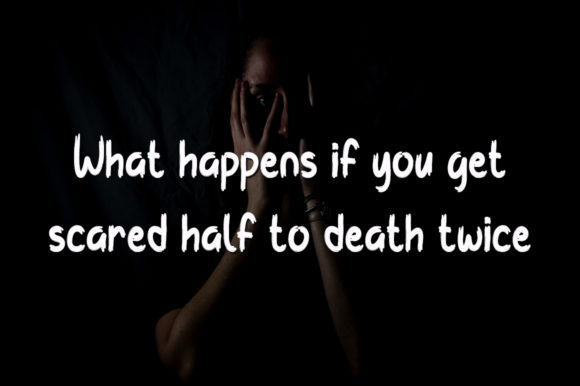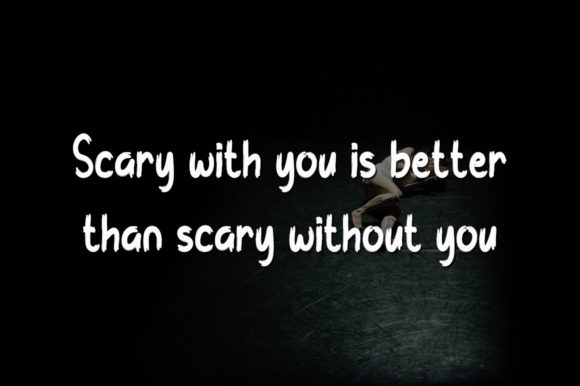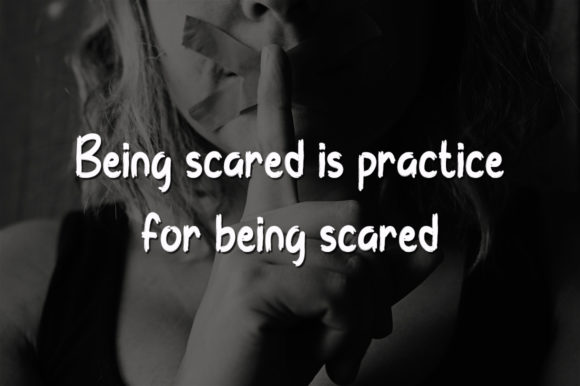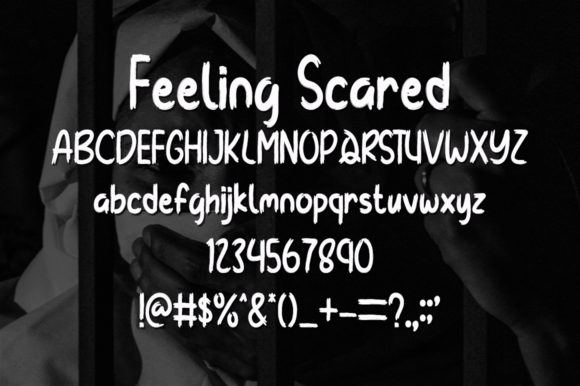
Unleash Your Creativity with Feeling Scared Font: A Casual Handwritten Delight
Are you a designer or crafter looking for the perfect font to add a personal touch to your projects? Look no further than Feeling Scared, a casual handwritten font that’s sure to make your designs stand out. In this article, we’ll dive into the world of Feeling Scared font, exploring its unique features, uses, and benefits. Whether you’re a seasoned pro or just starting out, you’ll learn how to make the most of this beautiful font and take your designs to the next level.
What is Feeling Scared Font?
Feeling Scared is a casual handwritten font that’s perfect for making beautiful and great designs. With its unique, laid-back vibe, this font is ideal for adding a personal touch to a wide range of projects, from DIY crafts to digital designs. The font’s casual, handwritten style gives it a friendly, approachable feel that’s sure to resonate with your audience.
Key Features of Feeling Scared Font
So what sets Feeling Scared font apart from other fonts out there? Here are just a few of its key features:
- Casual, handwritten style: Feeling Scared font has a relaxed, laid-back vibe that’s perfect for creating designs that feel friendly and approachable.
- Unique character set: With a wide range of characters to choose from, you can create unique and interesting designs that stand out from the crowd.
- Easy to read: Despite its casual style, Feeling Scared font is easy to read, making it perfect for use in a wide range of designs, from posters to social media graphics.
- Versatile: Whether you’re designing for print or digital, Feeling Scared font is versatile enough to work in a wide range of applications.
Uses for Feeling Scared Font
So what can you use Feeling Scared font for? The possibilities are endless! Here are just a few ideas to get you started:
- DIY crafts: From handmade cards to personalized gifts, Feeling Scared font is perfect for adding a personal touch to your DIY crafts.
- Digital designs: Use Feeling Scared font in your social media graphics, blog posts, and other digital designs to add a friendly, approachable vibe.
- Branding: Feeling Scared font is a great choice for branding projects, such as logos, business cards, and letterheads.
- Events: Use Feeling Scared font to create eye-catching posters, flyers, and other promotional materials for your events.
Benefits of Using Feeling Scared Font
So why choose Feeling Scared font for your designs? Here are just a few benefits to consider:
- Adds a personal touch: Feeling Scared font’s casual, handwritten style adds a personal touch to your designs, making them feel more friendly and approachable.
- Stand out from the crowd: With its unique character set and laid-back vibe, Feeling Scared font is sure to make your designs stand out from the crowd.
- Easy to use: Feeling Scared font is easy to use, even for those with limited design experience.
- Versatile: Whether you’re designing for print or digital, Feeling Scared font is versatile enough to work in a wide range of applications.
Tips for Using Feeling Scared Font
Here are a few tips for getting the most out of Feeling Scared font:
- Experiment with different sizes: Feeling Scared font looks great in a wide range of sizes, from small and delicate to large and bold.
- Pair with other fonts: Try pairing Feeling Scared font with other fonts to create interesting and dynamic designs.
- Use in combination with images: Feeling Scared font looks great in combination with images, such as photos or illustrations.
- Don’t be afraid to get creative: Feeling Scared font is a versatile font that can be used in a wide range of designs, so don’t be afraid to get creative and try new things!
In conclusion, Feeling Scared font is a beautiful, casual handwritten font that’s perfect for making beautiful and great designs. With its unique features, uses, and benefits, it’s a great choice for designers and crafters looking to add a personal touch to their projects. By following the tips outlined above, you can make the most of Feeling Scared font and take your designs to the next level.